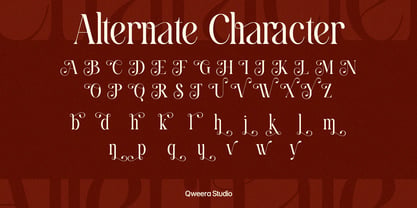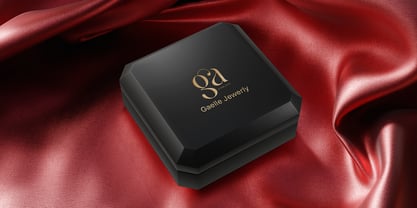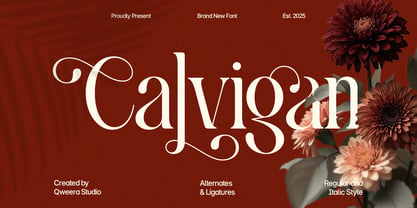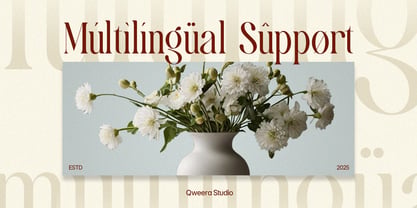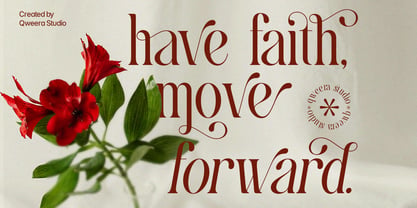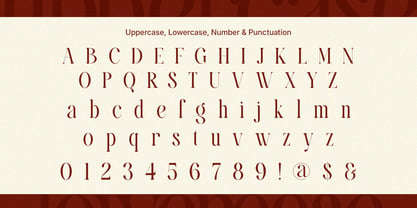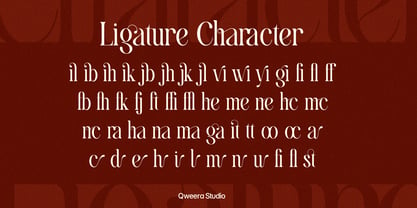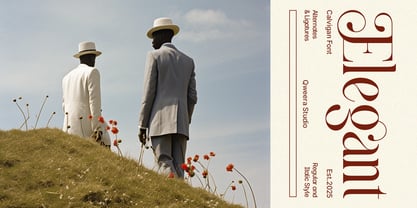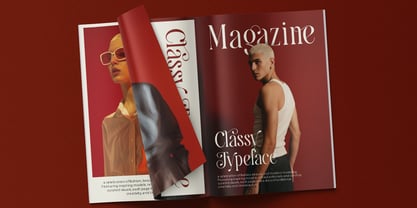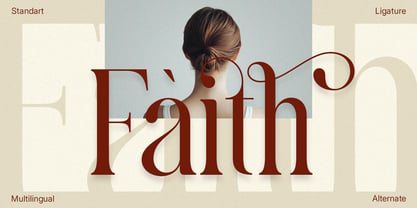
Calvigan
by Qweera Studio
The Calvigan Font Family was designed by Idhham Cholid Rikzano Yahya and published by Qweera Studio. Calvigan contains 2 styles and family package options. More about this family
Calvigan is a modern elegant display serif typeface developed for premium branding and sophisticated editorial applications. The font combines graceful curves, balanced contrast, and stylish ligatures for a polished romantic appearance. With multilingual support and alternate characters, Calvigan performs beautifully across logos, invitations, wedding branding, beauty packaging, and fashion campaigns. An excellent choice for professionals seeking timeless elegant typography. Features Alternates Ligatures Multilingual support Professional kerning Regular & Italic Elegant serif construction Specifications Language Support: Western, Central Europe Features: Alternates, Ligatures, Italic Recommended For Luxury branding, wedding invitations, packaging, editorial design, fashion identity, premium logos
Designers: Idhham Cholid Rikzano Yahya
Foundry: Qweera Studio